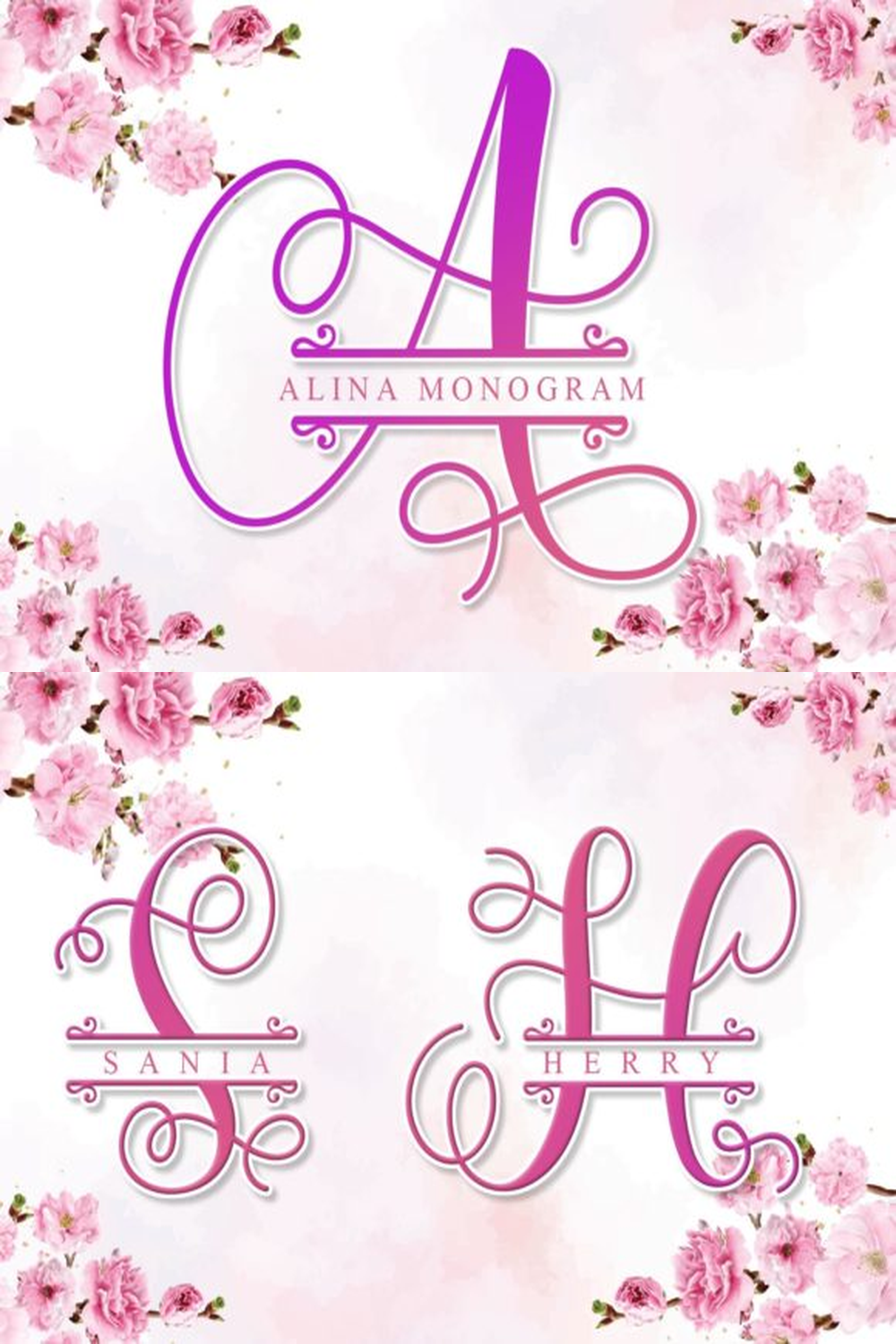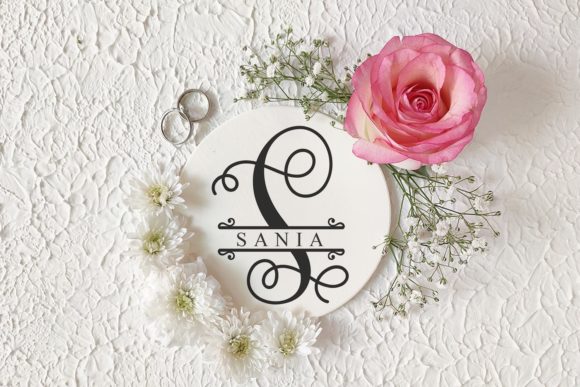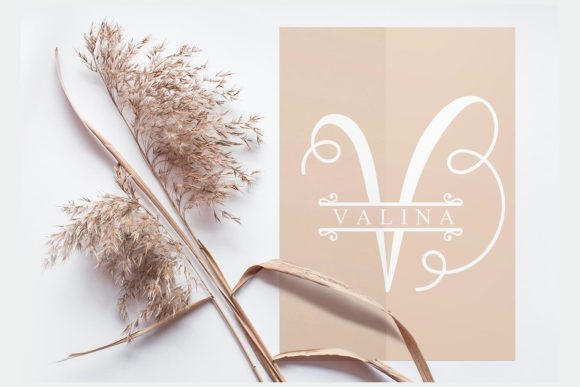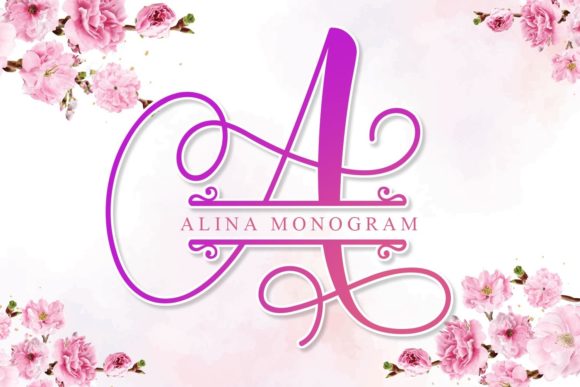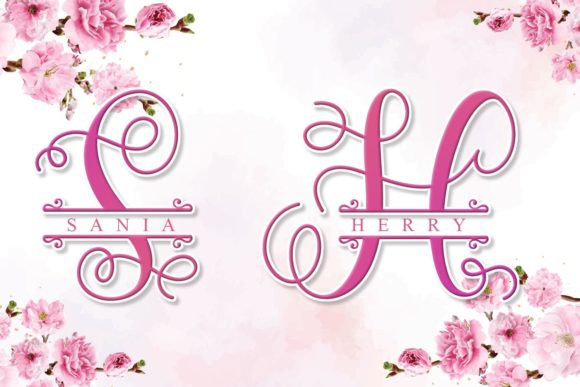
Alina Monogram Font Font
About the Alina Monogram Font Font
Step up your design game with Alina Monogram Font Font, a font that exudes confidence and style. Alina Monogram is a charming decorative font. Fall in love with its authentic feel and use it to create gorgeous invitations, beautiful stationary art, eye-catching social media posts, and cute greeting cards.